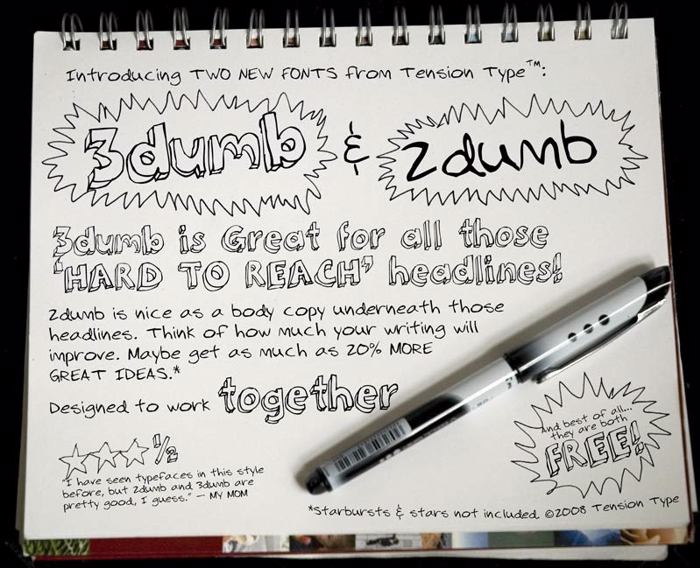
2Dumb Font
About 2Dumb Font
3Dumb Style
More info from Tension Type
Two complimentary hand drawn, doodle typefaces that will give your work a teenage doodle look.